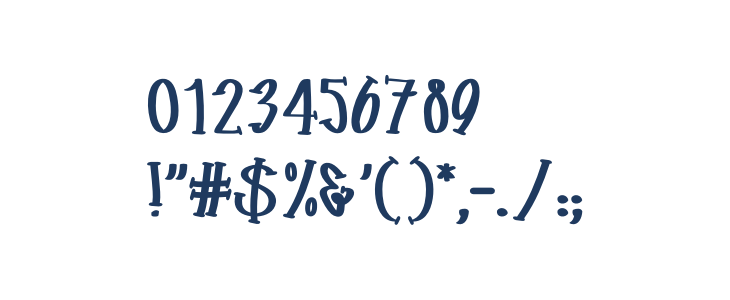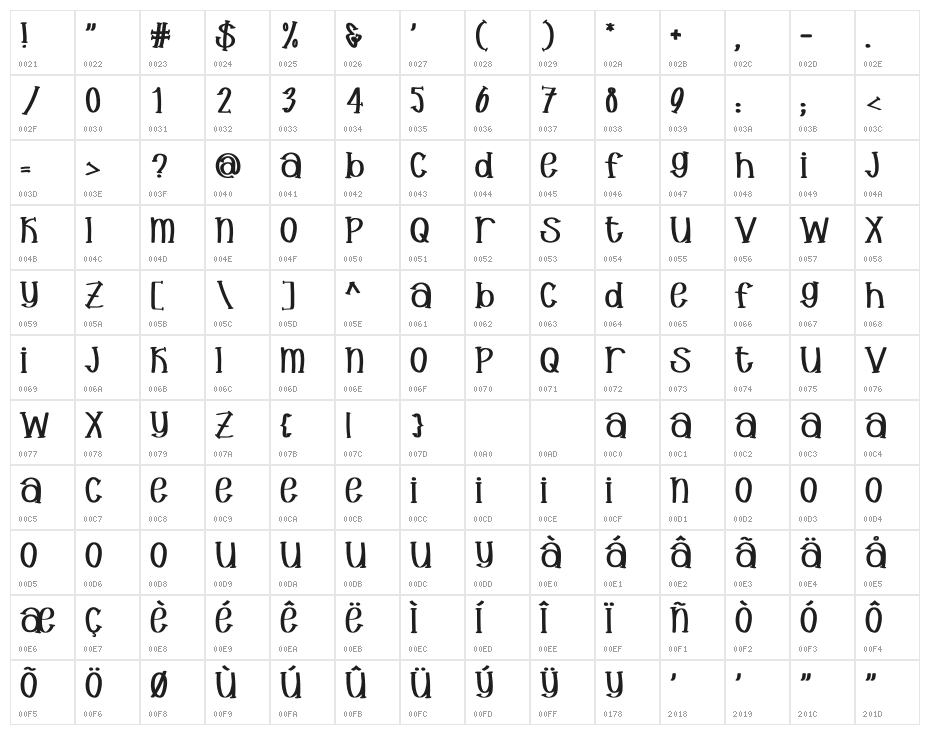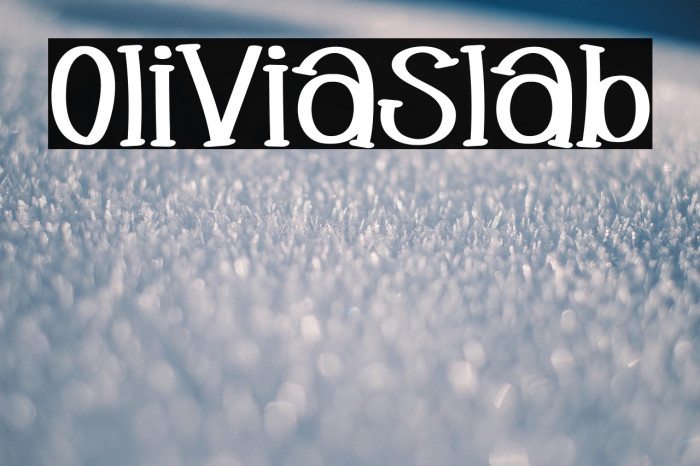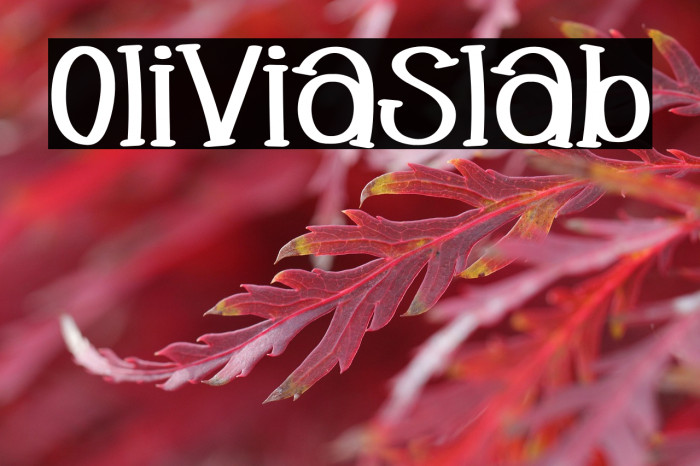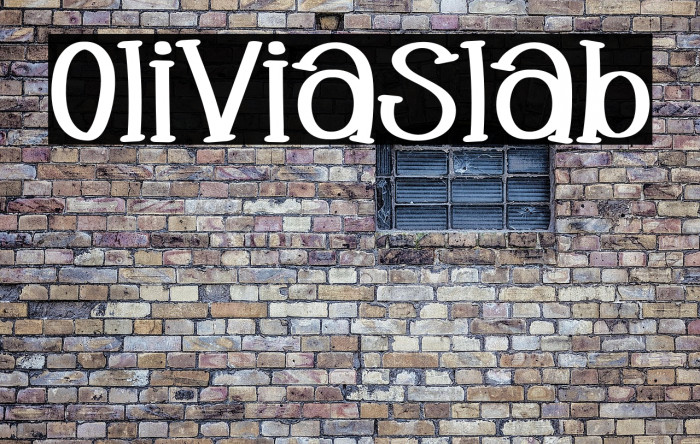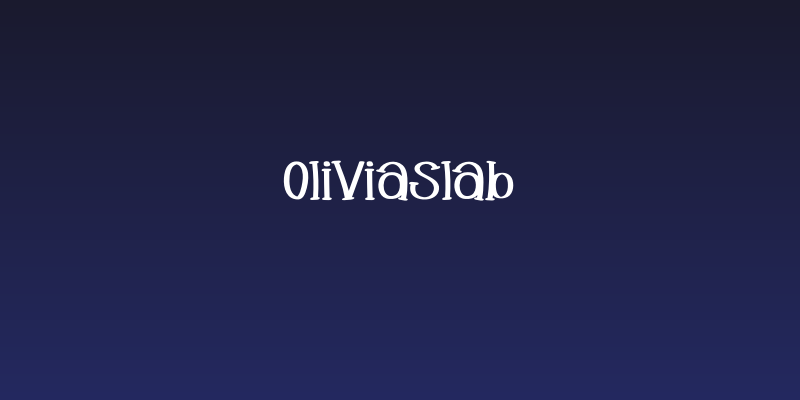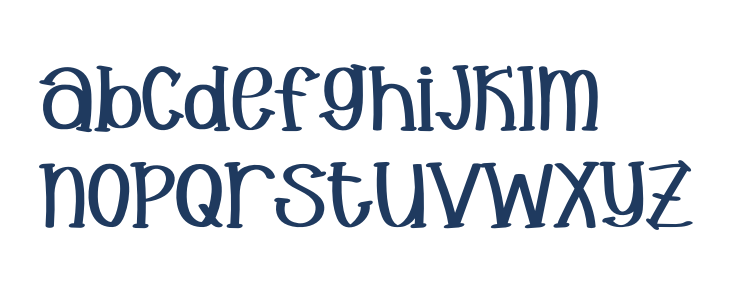
Oliviaslab Font
Oliviaslab Description
This font features a playful and whimsical design, characterized by its bold and rounded letterforms. The strokes are thick and consistent, giving it a strong presence on the page. Each character has a unique flair, with slight variations in curves and angles that add to its charm. The uppercase and lowercase letters maintain a cohesive style, while the numerals and special characters are equally expressive. This font's distinctive personality makes it ideal for creative projects that require a touch of fun and individuality.
| Proposed Projects | Ideal for children's books, playful branding, greeting cards, and creative posters. |